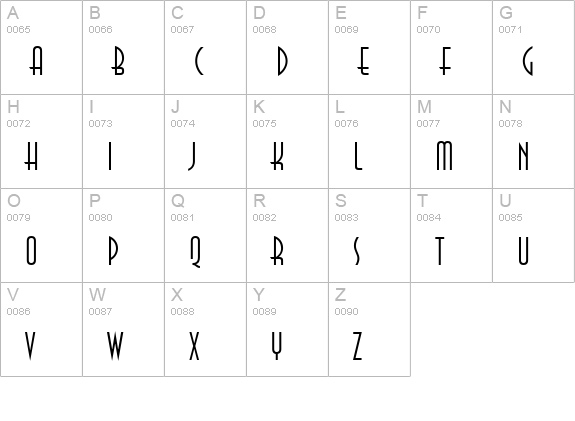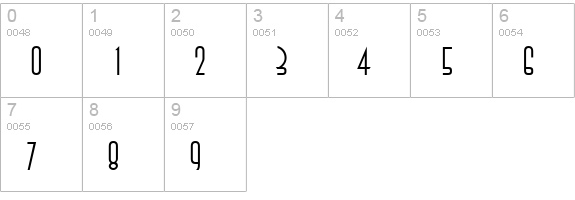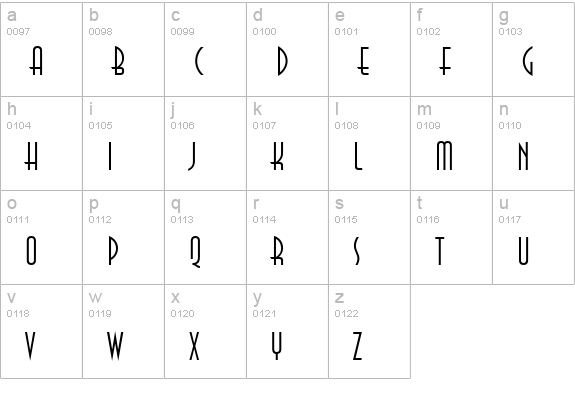
PT Anna Light Cyrillic Font Details
PT Anna Light Cyrillic is a refined, elegant variant in the PT typeface family \xE2\x80\x94 well suited to elegant body text, refined sub-headings, and luxury branding.
PT Anna Light Cyrillic font is a modern and elegant typeface that exudes sophistication and clarity. With its sleek lines and smooth curves, this font is perfect for a wide range of design projects, from branding to editorial design. The light weight of the font adds a delicate touch, making it ideal for creating a sense of refinement and elegance. The Cyrillic characters in PT Anna Light Cyrillic font are beautifully crafted, ensuring that your text looks polished and professional. Whether you are designing a website, creating marketing materials, or working on a personal project, this font will elevate your work and give it a touch of sophistication. Best of all, PT Anna Light Cyrillic font is freely available to download at FontsMarket.com, making it accessible to designers and creatives everywhere. Don't miss out on the opportunity to add this stunning font to your collection and elevate your designs to the next level.